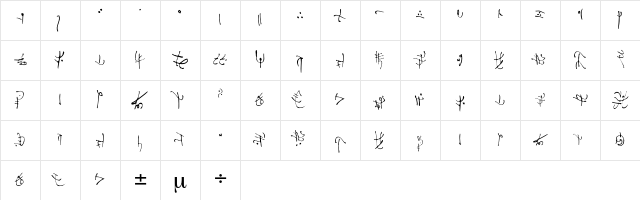
Korohanza Regular Font Preview
Korohanza Regular
Korohanza Regular Font Details
Design Context for Korohanza Typeface
Korohanza is a composed and adaptable typeface that performs quietly and consistently across a wide range of design contexts.